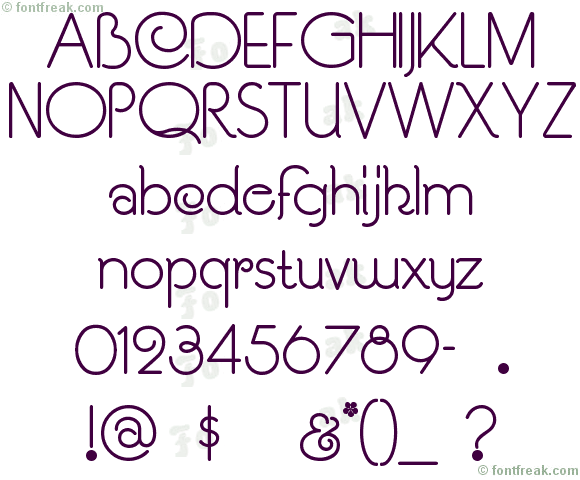
SouciSans
SouciSans, designed by Nick Curtis in 1999, is a unique sans-serif font that embodies a playful yet sophisticated aesthetic. With its rounded forms and gentle curves, it offers a friendly and approachable vibe, making it ideal for various design projects. The font features a medium stroke weight, providing a balanced contrast that ensures legibility while maintaining a modern appearance. The generous spacing between characters contributes to its airy feel, making it suitable for both headlines and body text.
This versatile typeface shines in several applications. It is particularly well-suited for branding and promotional materials, where a casual yet professional look is desired. Wedding invitations benefit from its elegant charm, creating an inviting atmosphere for guests. Restaurant menus can use SouciSans to convey a relaxed yet refined dining experience, while event posters and flyers gain an engaging visual impact that captures attention. Moreover, digital content creators will find it perfect for social media graphics, adding a touch of personality to their posts.
SouciSans appeals to a diverse audience, including graphic designers seeking to enhance their projects with a distinctive font, small business owners wanting to establish a memorable brand identity, and content creators looking for an engaging typeface to elevate their visual storytelling.
What sets the SouciSans font apart is its ability to blend simplicity with character. It manages to be both approachable and stylish, making it a fantastic choice for anyone in need of a font that stands out without overwhelming the design. For those interested in this charming typeface, the SouciSans font free download makes it easily accessible, allowing creatives to incorporate its unique flair into their work.